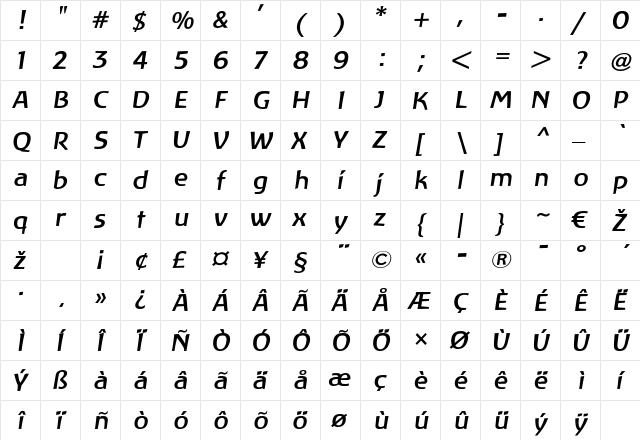
LTAtlantis MediumItalic Regular
| Designer | Lutz Baar |
Design Context for LTAtlantis MediumItalic Typeface
LTAtlantis MediumItalic offers clean, dependable letterforms without strong stylistic allegiance, making it a practical choice for designers who need flexibility. Its italic angle brings a sense of urgency and motion to the letterforms.
Pro Tip: Use LTAtlantis MediumItalic for emphasis, pull quotes, and subheadings where its slanted energy can add rhythm to the layout.